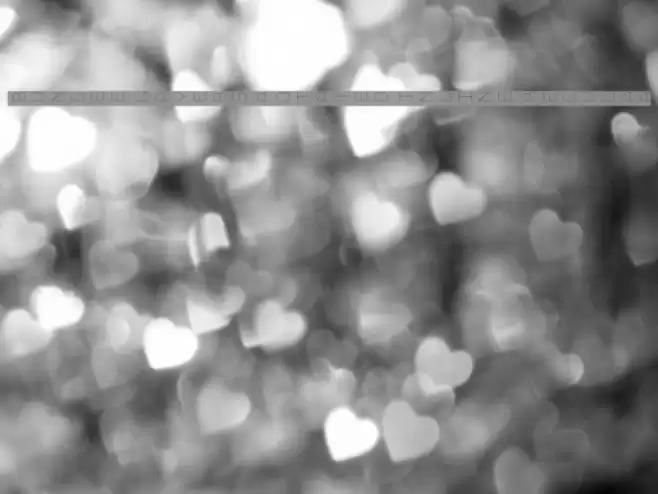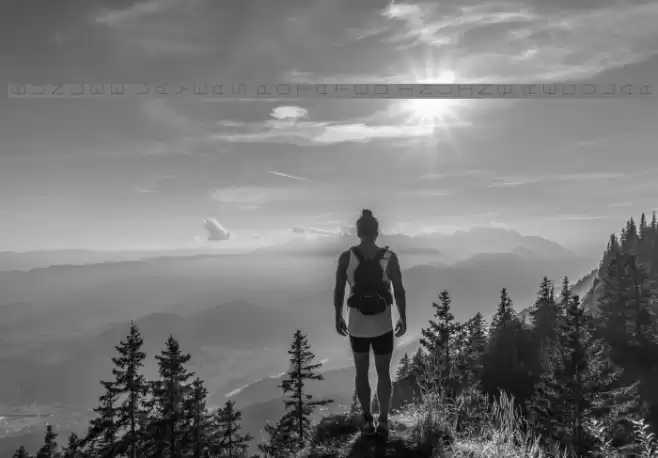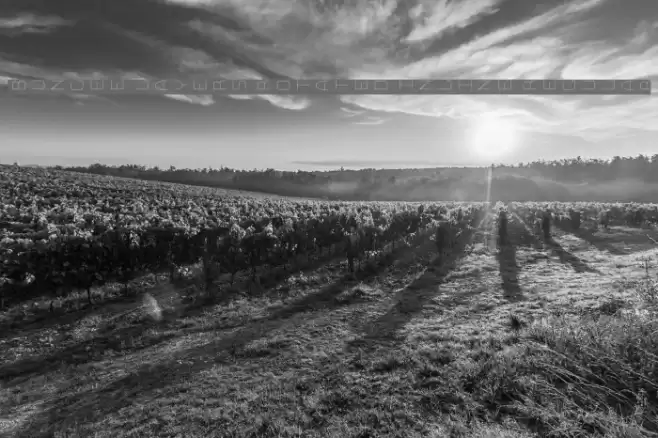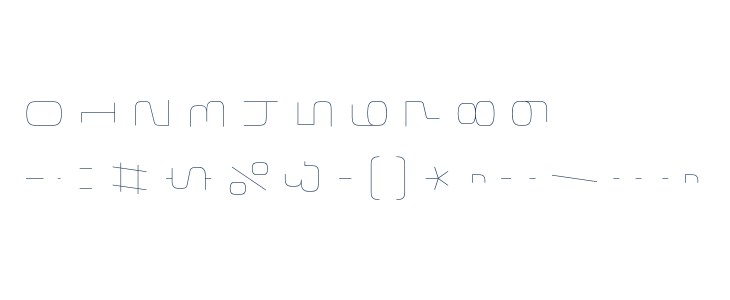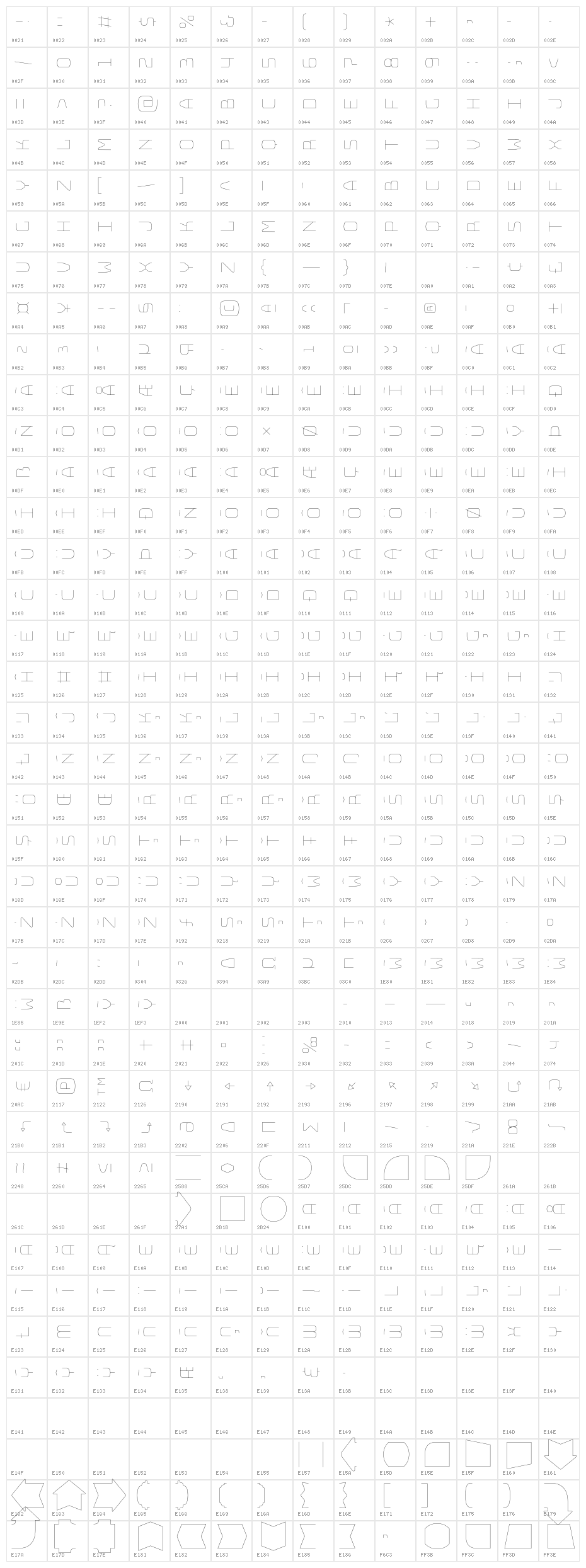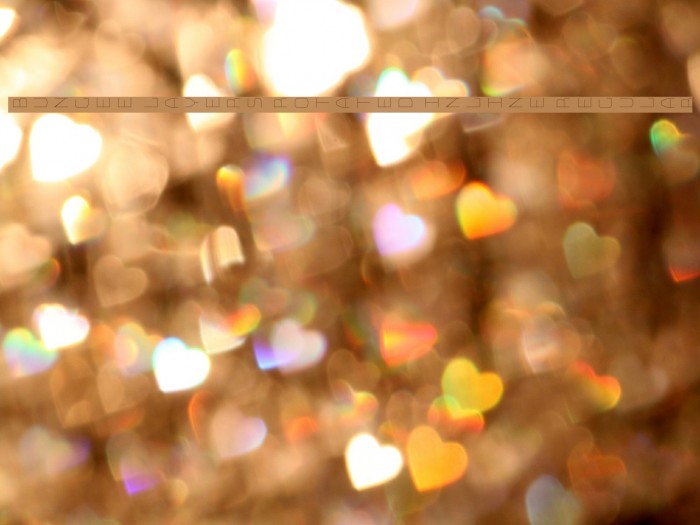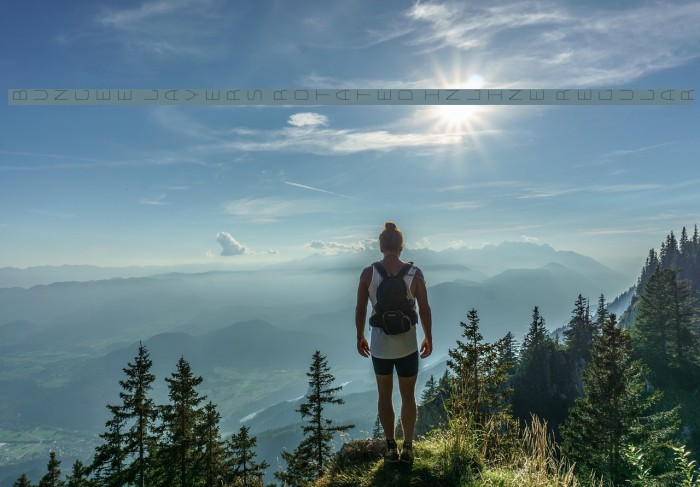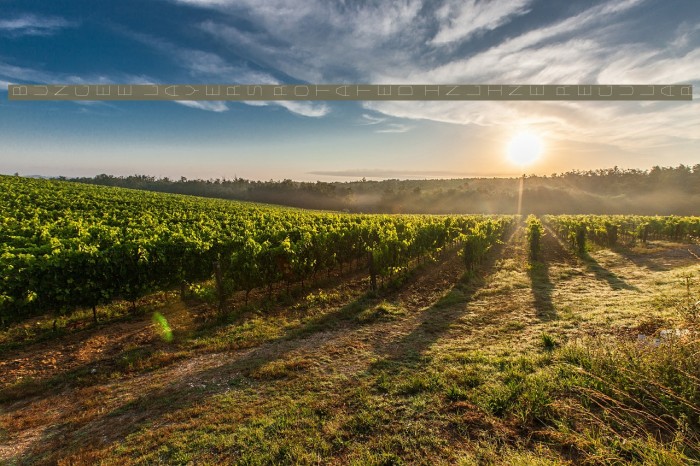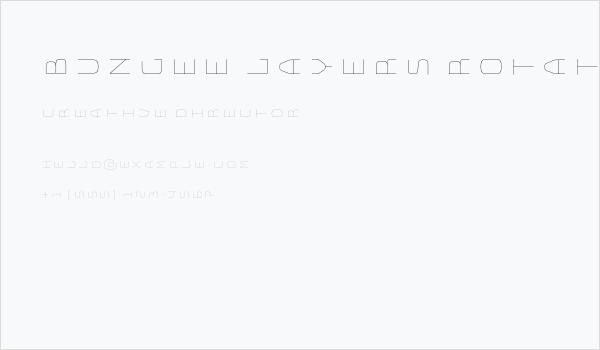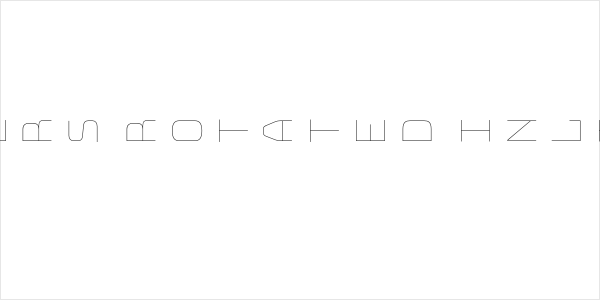
Bungee Layers Rotated Inline Regular Font
Bungee Layers Rotated Inline Regular Description
This font features a unique and playful design with a geometric and rotated inline style. The characters are constructed with a thin line weight, creating a modern and minimalistic appearance. The letters have a distinct angular and blocky form, with some characters appearing as mirror images or rotated versions of traditional letterforms. This gives the font a dynamic and unconventional look, making it stand out in any design. The spacing between characters is normal, allowing for readability while maintaining its artistic flair. The font's overall style is decorative and contemporary, suitable for creative and bold design projects.
A geometric, rotated inline font with a playful and modern design from Uncategorized fonts.
- Proposed Projects: Ideal for posters, logos, branding, and any project requiring a distinctive and artistic touch.